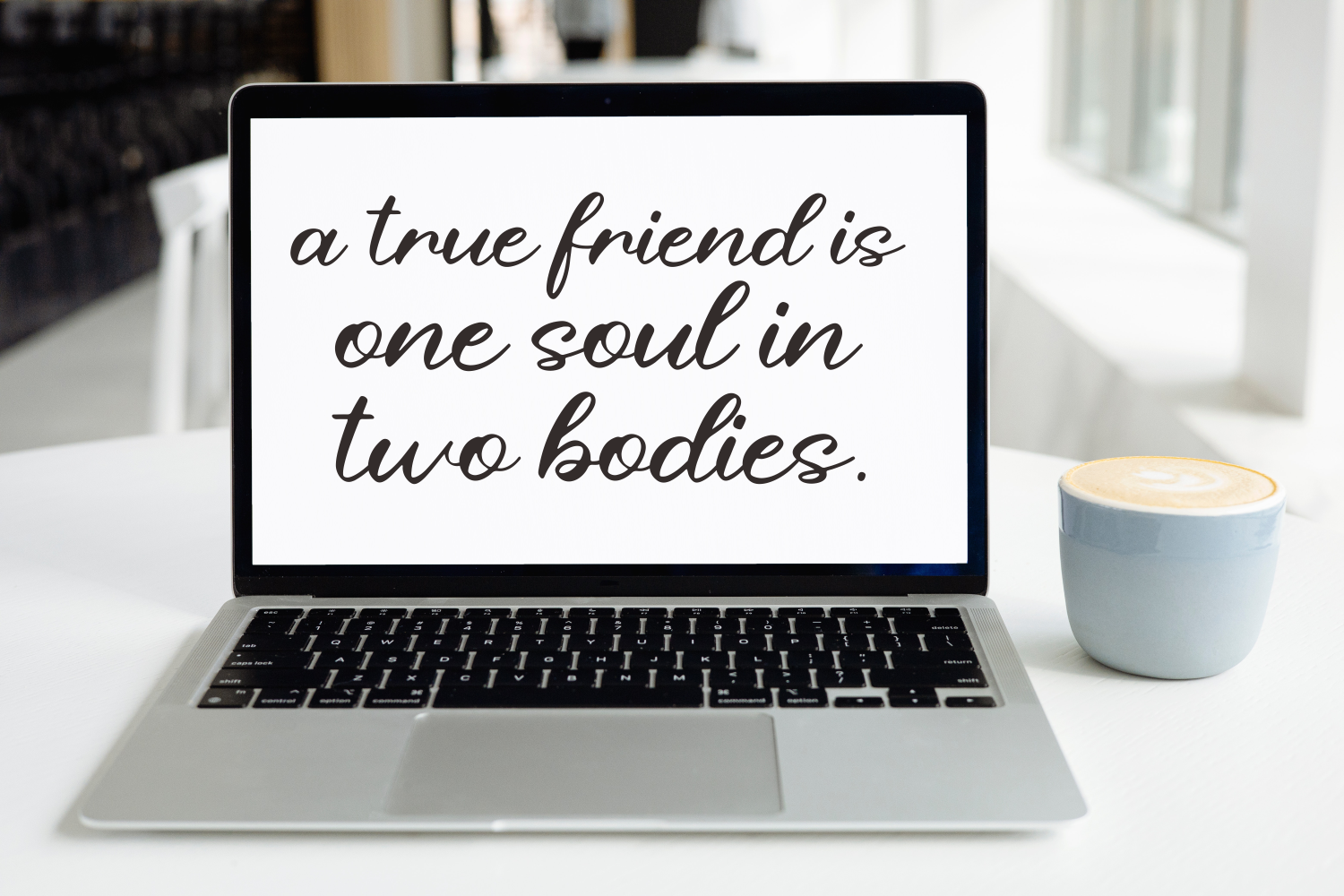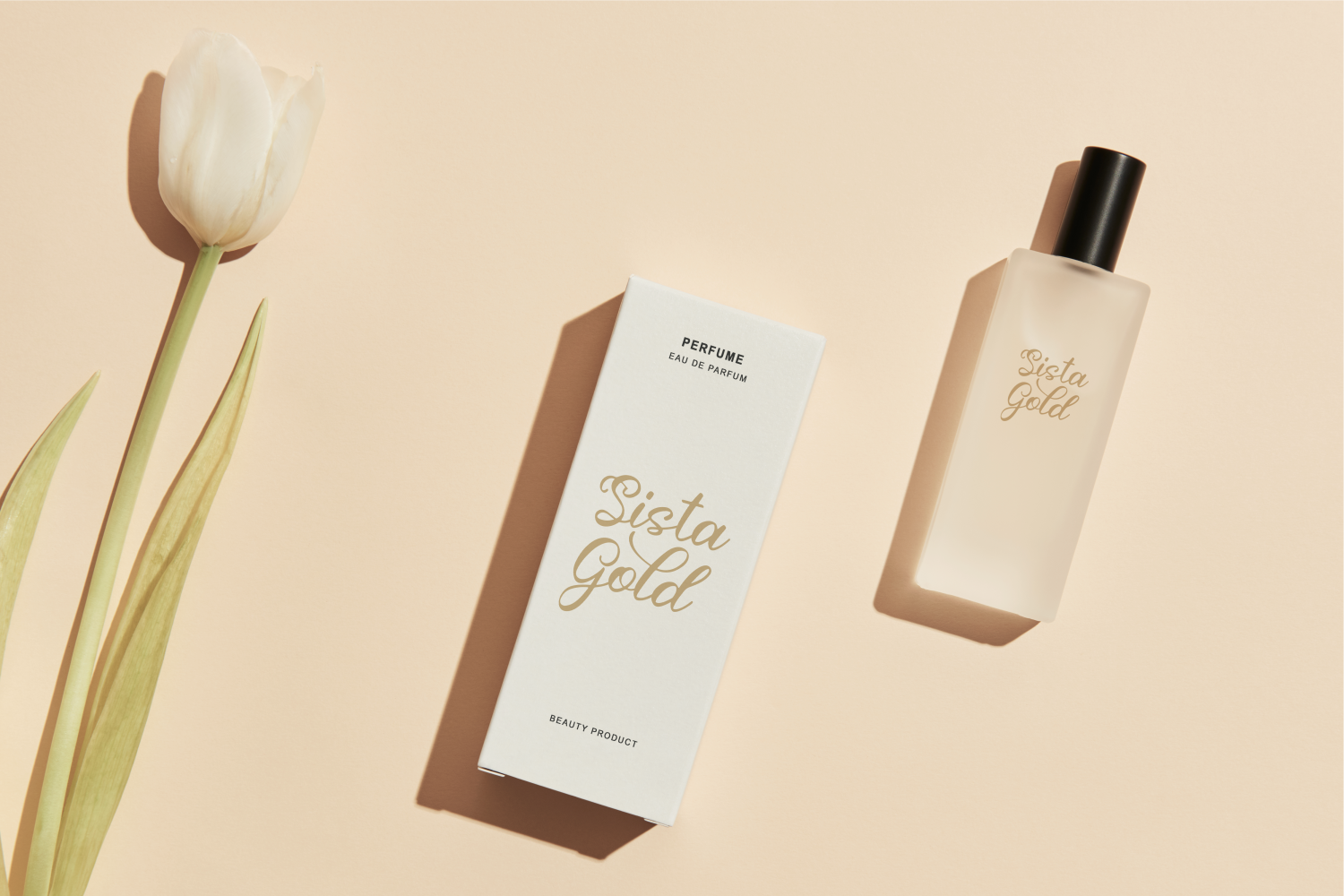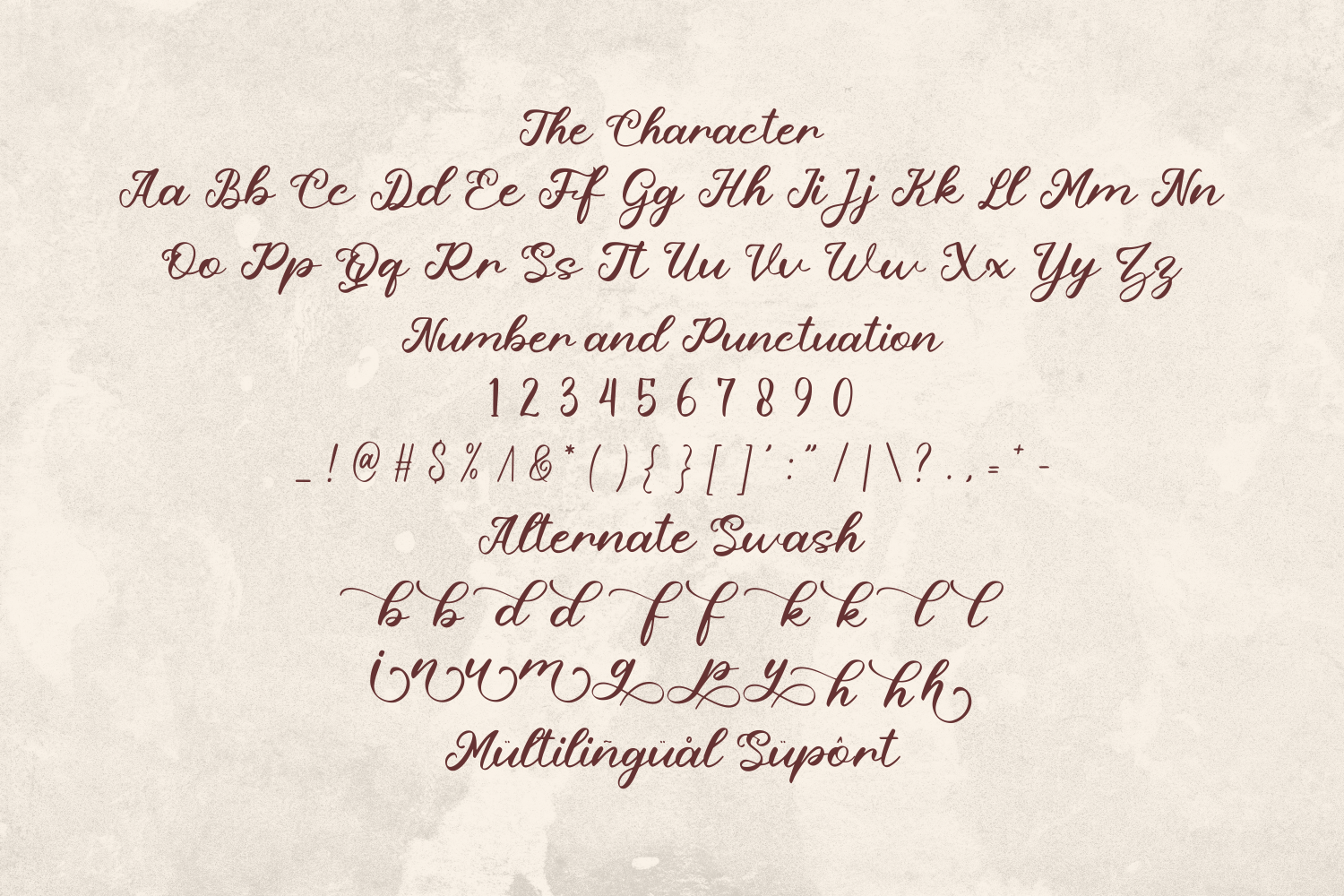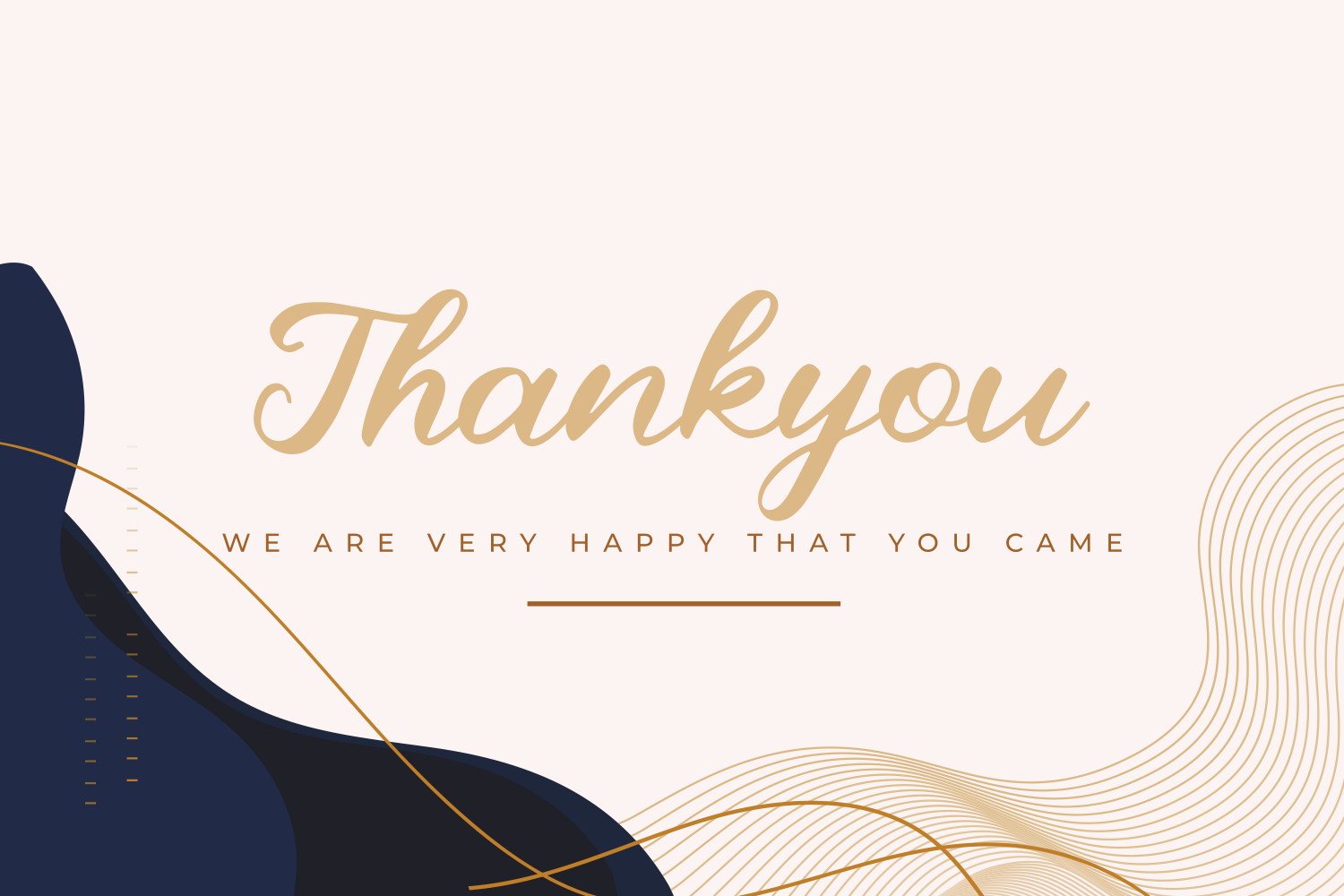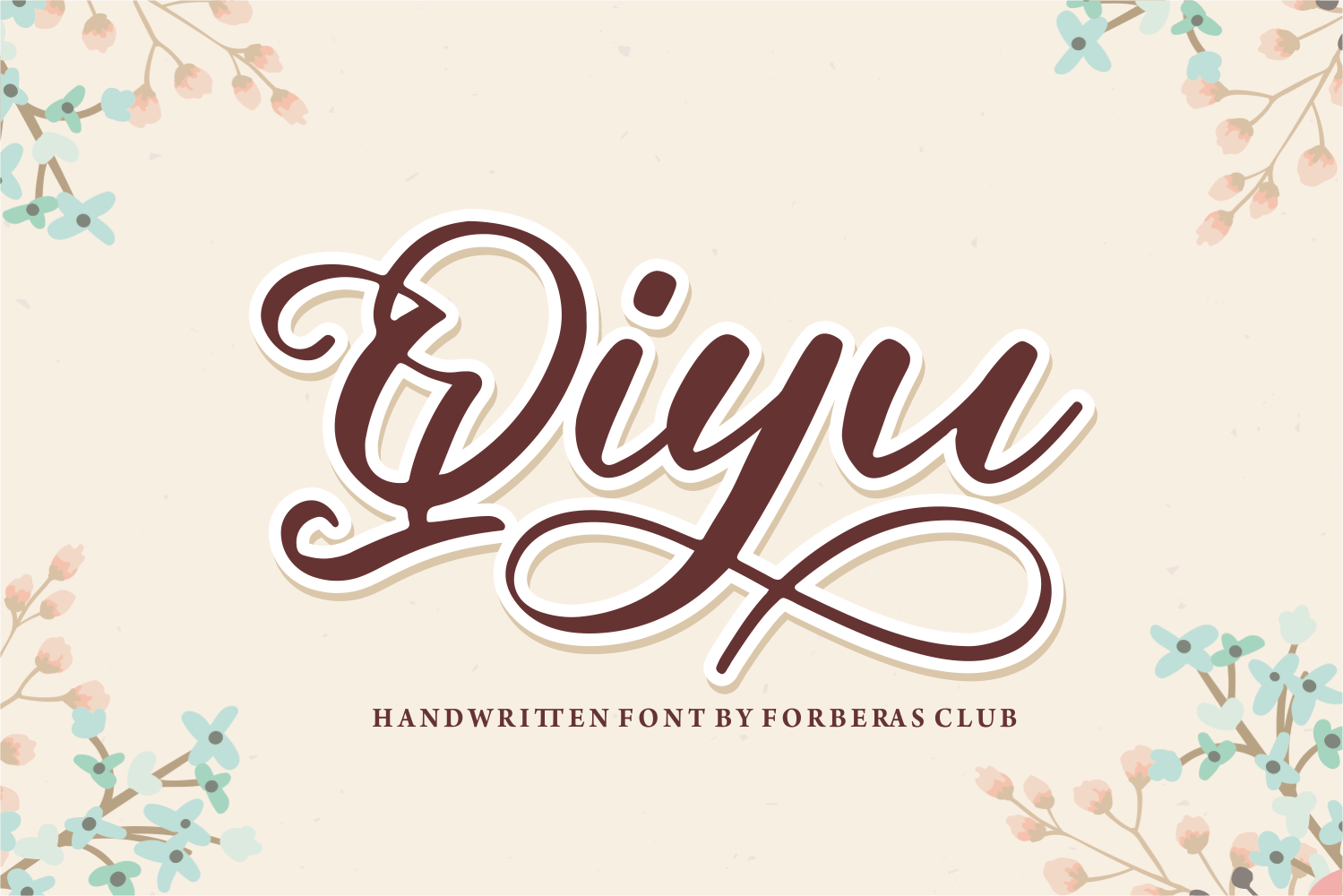
Qiyu Script Font is a flowing handwritten font, described by an elegant touch, perfect for your favorite projects. Fall in love with its incredibly distinct and timeless style and use it to create spectacular designs!